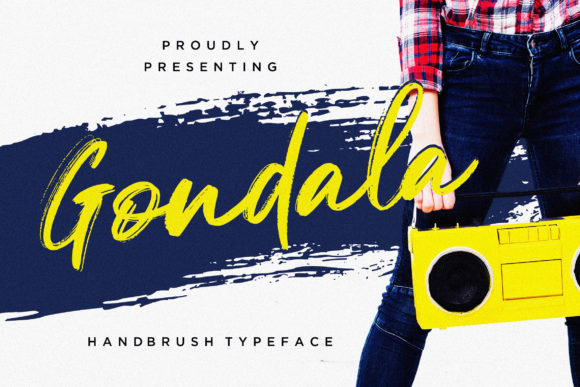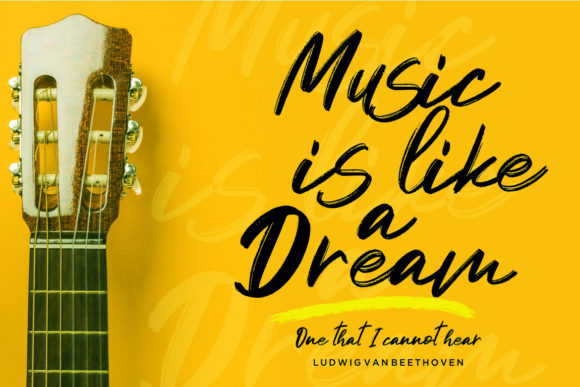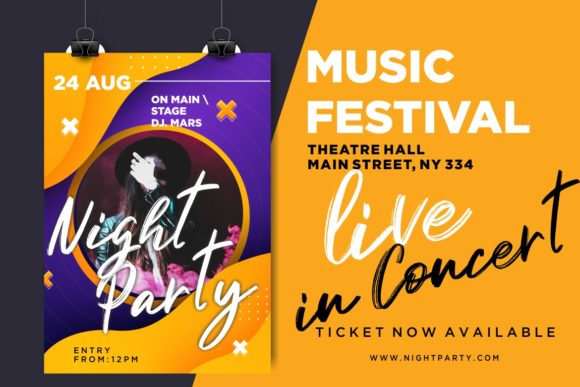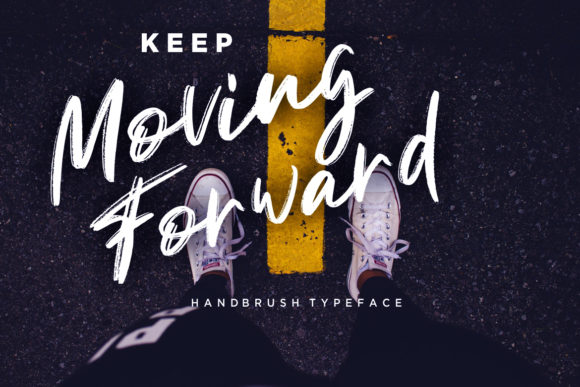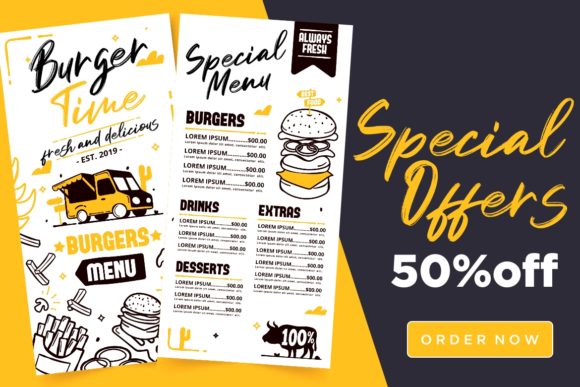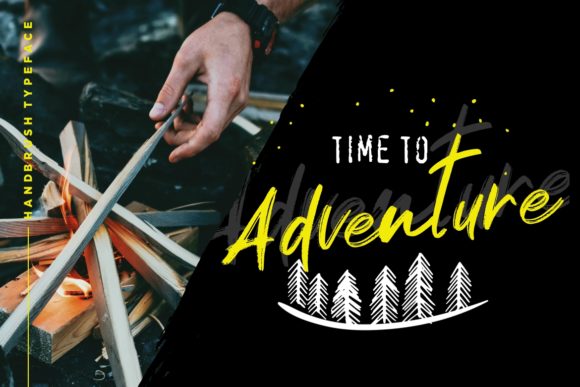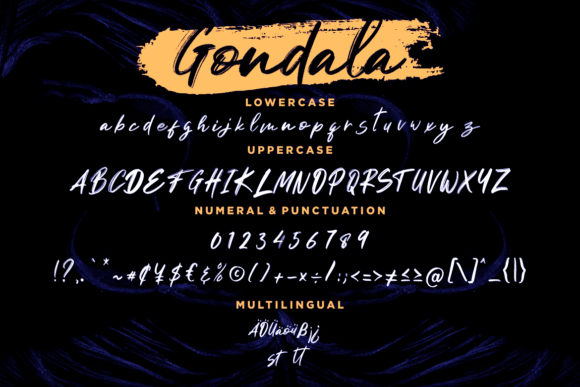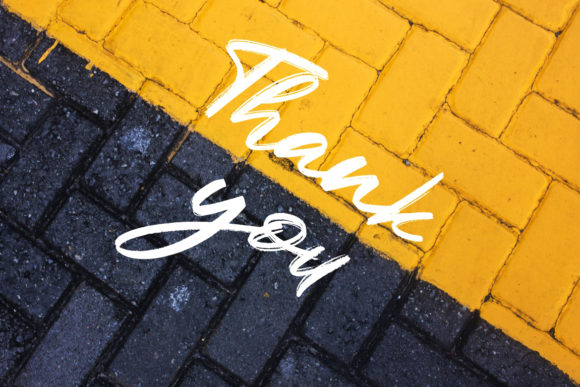
HomeScript FontsGondala Font Script Fonts Gondala Font FacebookXPinterestWhatsApp Gondala Font Poster 2 Gondala Font Poster 3 Gondala Font Poster 4 Gondala Font Poster 5 Gondala Font Poster 6 Gondala Font Poster 7 Gondala Font Poster 8 About Gondala Font Gondala features beautiful imperfections in its brush strokes, making it an incredibly authentic script! DOWNLOAD ON CREATIVE FABRICAThis font is sold and delivered by Creative Fabrica. Font Canyon may earn a commission if you buy through this link. People also explored Summer Magic Font Ultimate Victory Font Fire Font Font Expression Conveying Font Safella Font Coconut Milk Font Mottona Thin Script Font Couture Beach Stardaw Duo Font 345 0 TagsGondala Font Previous articleBoujond FontNext articleQuickly Font LEAVE A REPLY Cancel reply Comment: Please enter your comment! Name:* Please enter your name here Email:* You have entered an incorrect email address! Please enter your email address here Website: Save my name, email, and website in this browser for the next time I comment. Personal Use Free Nulshock Bold Personal Use Free Read more about this font Relic Island 2 Personal Use Free Read more about this font Expaing Personal Use Free Read more about this font BD Algebra Personal Use Free Read more about this font BLOG To increase your work productivity, choose the most readable fonts. In today's fast-paced work environment, where digital communication and information consumption are integral to our daily routines, the choice of fonts can significantly impact... Top 7 Google Fonts Alternatives for Faster and Privacy-Friendly Web Design (2025) Exploring Font Trends Where to Buy American Fonts Online in 2024